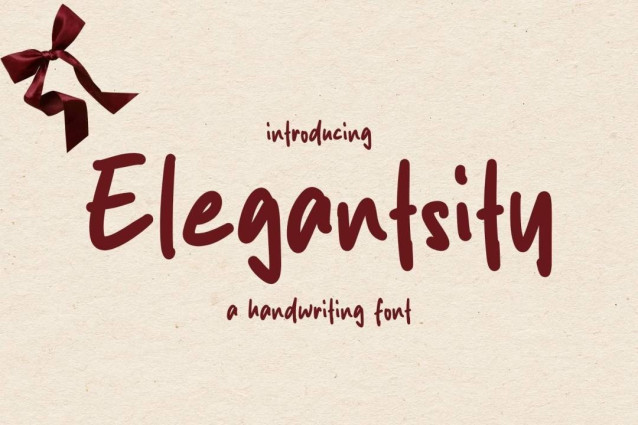
Elegantsity Font
Elegantsity Font is a simple and friendly handwritten font. Its natural and unique style makes it incredibly fitting to a large pool of designs. The only limit is your imagination!